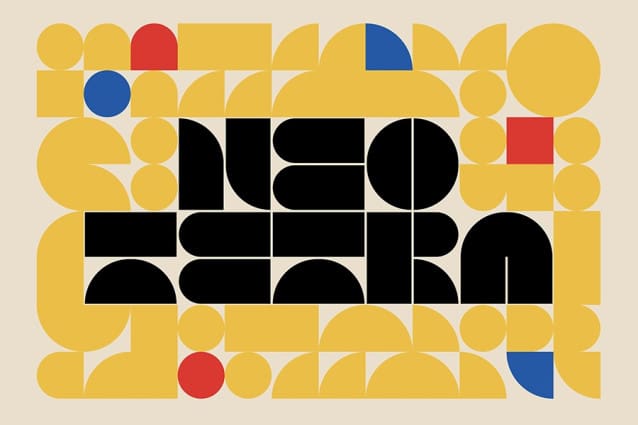
Neo Tetra Font
Neo Tetra Font is a font inspired by the extraordinary geometric abstractions of Bauhaus. By reimagining fonts into basic geometrical shapes, font creator Benny Yang reimagines 26 letters, 10 numbers, and 12 symbols as forms comprised of primitive shapes. The font carries the essence of Bauhaus design movement where clean lines and simple shapes of geometric forms can create a sense of order, clarity, and efficiency.
Due to its abstract shapes, Neo Tetra is a display style font that works great for logos, large text display with short text length. Currently the font is free for personal use only.